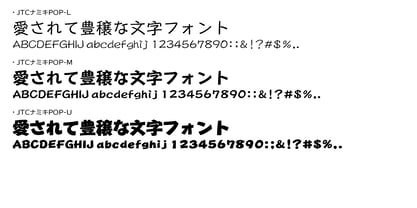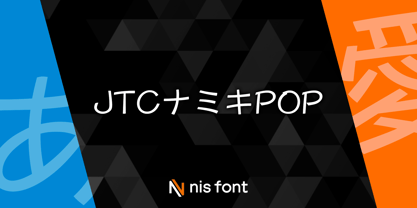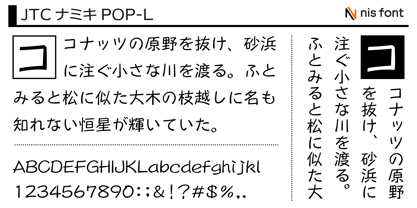
OT-NIS_NP
by NIS Fonts
The OT-NIS_NP Font Family was designed by and published by NIS Fonts. OT-NIS_NP contains 3 styles and family package options. More about this family
This design aims to blend Gothic typeface with handwritten characters, making it ideal for writing to close acquaintances. It includes kanji from JIS Level 1, kana, symbols, and 94 kanji selected from JIS Level 2. Special characters have been placed in JIS Level 1 Zone 07 instead of Russian letters. Supports the JIS2004 character set.